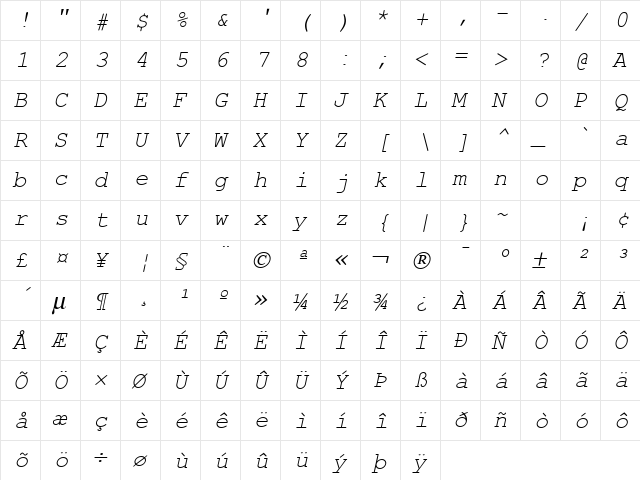
CourierSH Oblique
Design Context for CourierSH Typeface
CourierSH uses fixed-width spacing throughout, giving it the structured, systematic character associated with coding environments and technical documentation. The dynamic lean of this cut emphasises speed and emphasis in any layout.
A natural fit for code editors, technical documentation, developer-focused branding, and terminal-inspired UI.
Pro Tip: Pair CourierSH with a proportional sans for UI contexts where code-style labels and regular body copy need to coexist.